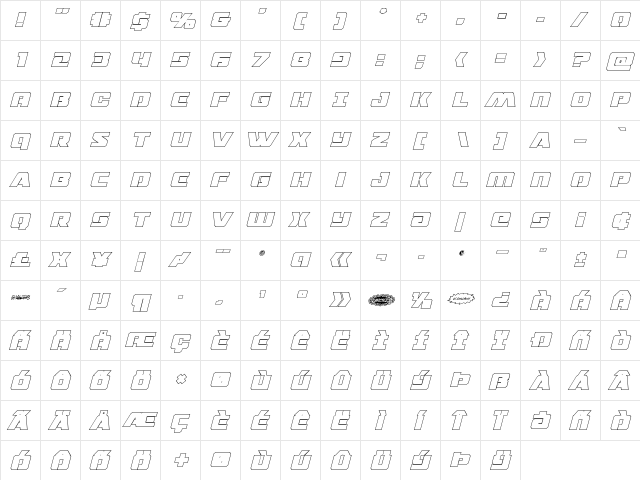
Design Context for Drone Tracker Thin Outline Italic Typeface
Drone Tracker Thin Outline Italic brings ornamental detail and strong personality to headlines and identities, where visual impact matters more than quiet functionality. The dynamic lean of this cut emphasises speed and emphasis in any layout. The delicate stroke weight brings airiness and refinement to layouts.
Font Pairing: Pair with a clean neutral sans-serif for body copy to let Drone Tracker Thin Outline Italic's character lead without overwhelming the composition.
Pro Tip: Treat Drone Tracker Thin Outline Italic as the centrepiece of your typographic hierarchy. One strong heading set in a decorative face can carry an entire layout.